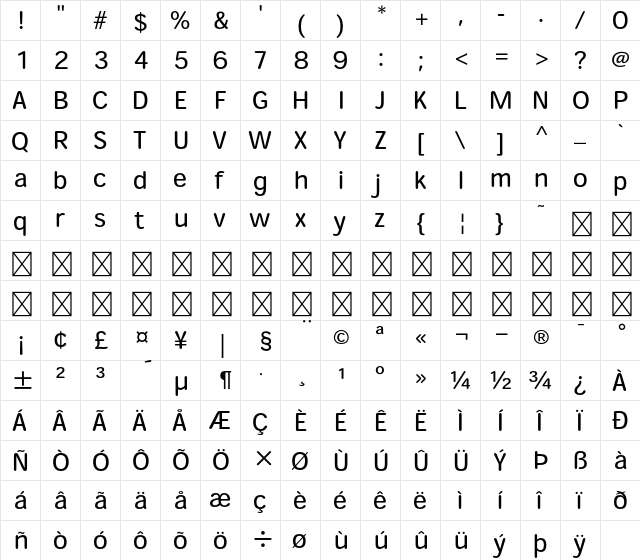
Heisei Maru Gothic Std W4
Design Context for Heisei Maru Gothic Std Typeface
Heisei Maru Gothic Std takes a clean, functional approach — its unadorned letterforms prioritise legibility and work reliably across screen and print environments.
Font Pairing: Works well alongside a characterful serif or display font that can carry the expressive load while Heisei Maru Gothic Std handles the functional copy.
Pro Tip: Pair Heisei Maru Gothic Std with a display or serif font for headlines — its neutral character makes it an excellent supporting player in complex typographic systems.